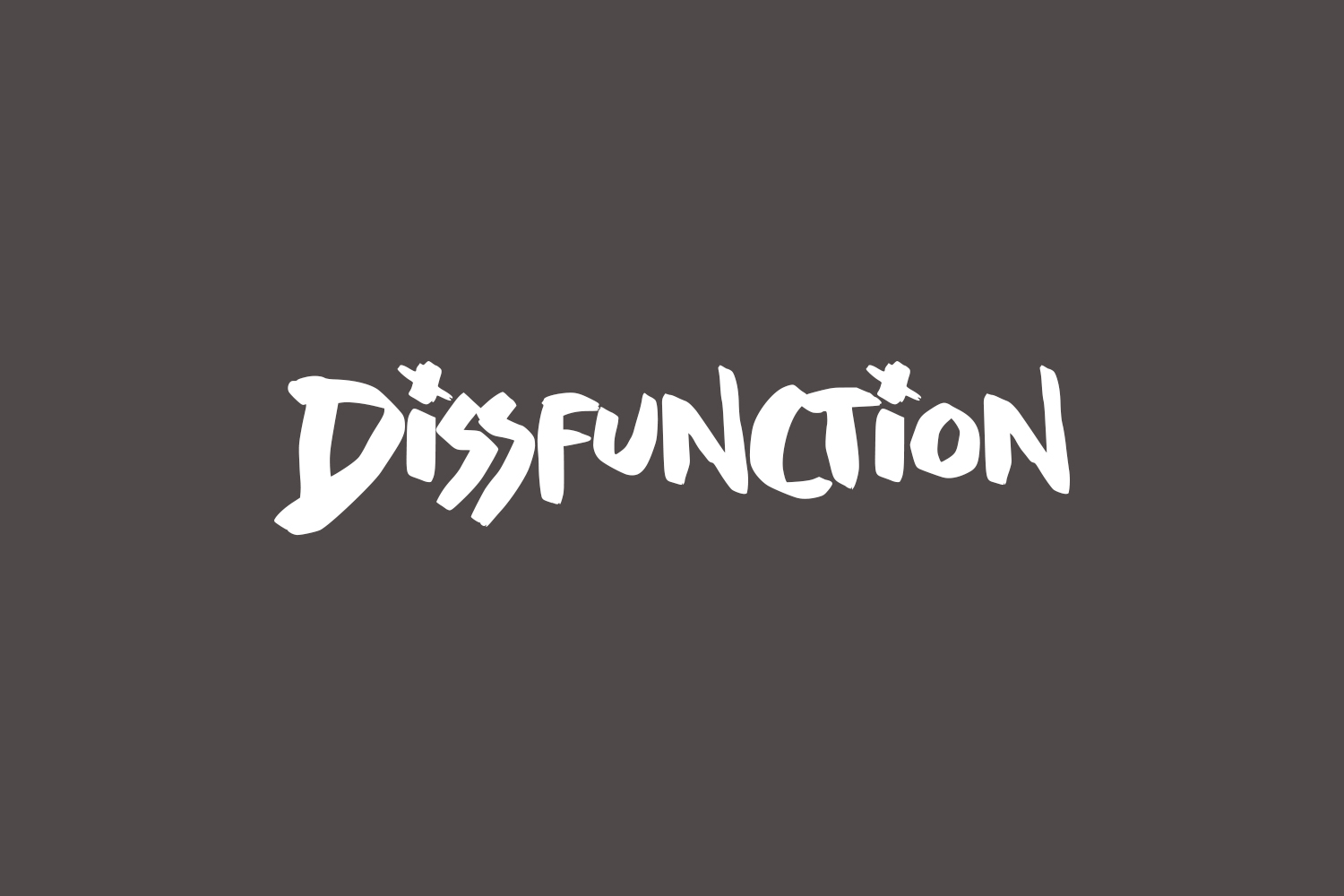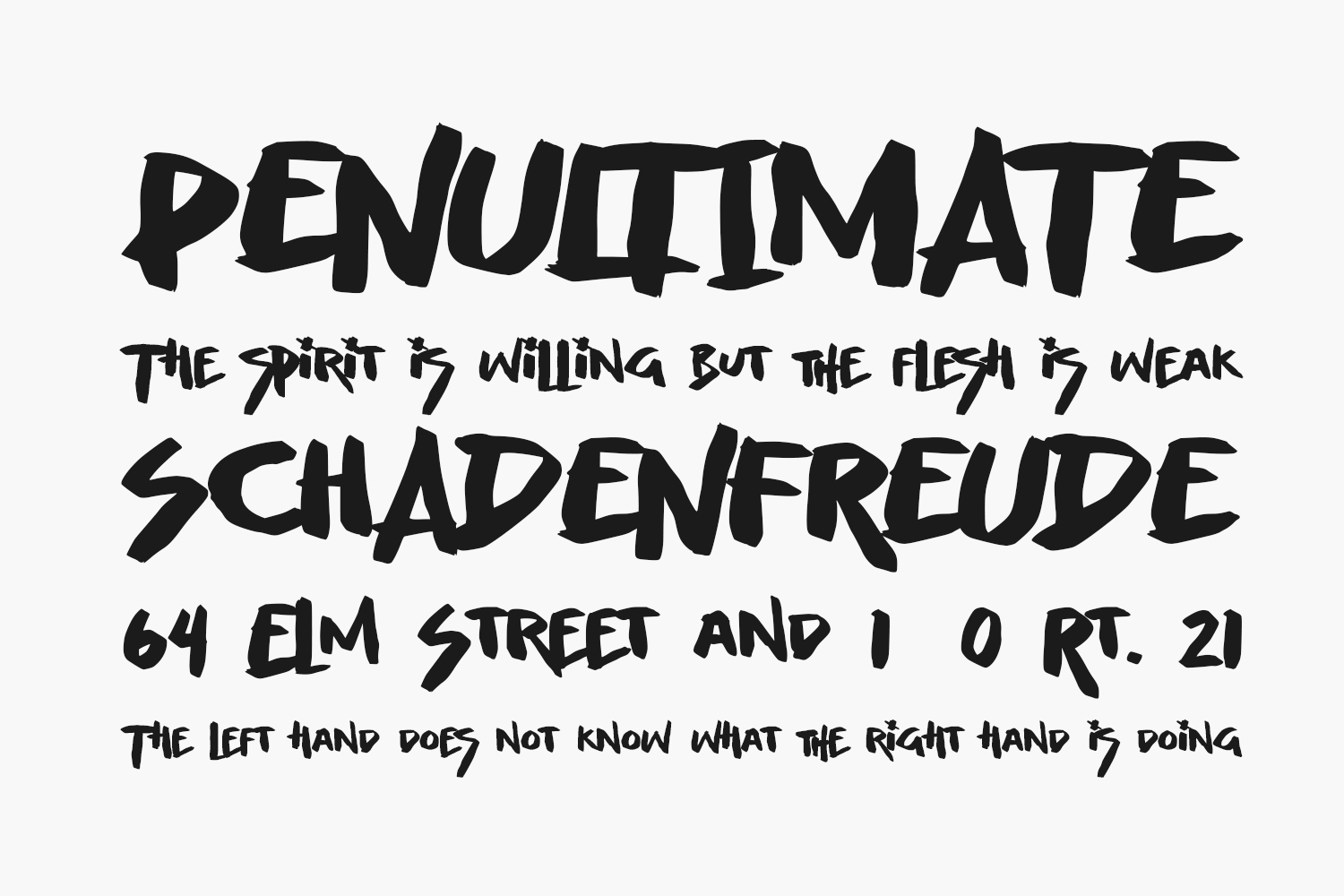
Introducing Dissfunction Free Font, a meticulously crafted handmade font that effortlessly enhances the natural beauty of your designs. Ideal for various projects such as invitations, logos, book covers, crafts, and more, Dissfunction features charming, authentic, and relaxed characters, imparting a refreshingly natural aesthetic to your text. Elevate your design with the organic allure of Dissfunction. Download the font for free if you need it for personal use or purchase the full version for commercial use.
Designed by Gassstype